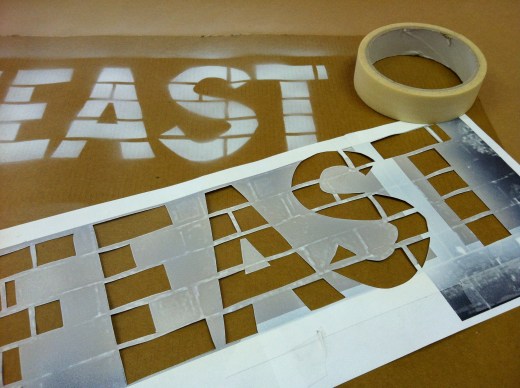
Sign painting past and present
Open your eyes, look up and discover ‘ghostsigns’, the fading remains of hand-painted advertising on walls.
Sam ‘ghostsigns’ Roberts leads tours of these faded signs in Stoke Newington in North East London, just down the road from the Type Tasting studio. For the London Design Festival this year he is leading a new walk through the streets of Southwark in South London hunting for the fading remains of painted signs from years gone by. The tour will reveal some of London’s most iconic signs, exploring the local, advertising and design history that they convey.
Bankside Ghostsigns Walk for the London Design Festival
If you prefer your sign painting fresh off the brush you can try your hand at painting letters in the iconic surrounds of Borough Market with sign legend Mike Meyer “paint, brushes, lettering and laughs guaranteed”. To tie in with this there is a double-bill screening of the Sign Painters movie and 21st Century Victorian, a short film about UK signwriter and fairground artist Joby Carter who says that as a fairground signwriter he considers himself to be a showman. Find out more.
Sign painting weekender with Mike Meyer
The Type Tasting studio turned into a creative wonderland of ink and hand painted letters this weekend. To coincide with the London screenings of Sign Painters Mike Meyer, one of the film’s stars, came to town to deliver an intensive two-day sign painting workshop which was organised by Sam from Better Letters. Mike teamed up with the Brilliant Sign Co. and under their expert guidance we filled the Type Tasting studio with inky lettering.
Painting Signs with Mike Meyer & The Brilliant Sign Co
“If you have the ‘FIRE IN THE BELLY’ and really have a passion for lettering… this is a workshop for you!” Mike Meyer, Sign Painter
Signage from Dalston to Devon
Different letters found in Dalston assembled to make the phrase 'Club Labrynth'
Above is Club Labrynth by Sam Roberts from Ghostsigns who came along to Sunday’s Dalston Type Safari. He explains that “For me, Club Labrynth is the earliest memory I have of Dalston as a destination. Back in the mid-1990s it was the weekly hardcore/jungle night at the legendary Four Aces nightclub… The provocation of memory was an unexpected aspect of the Type Safari, and there were other long-term Hackney residents on the walk sharing their own recollections.”
Sign painter workshop
To coincide with the London screenings of the Sign Painters movie, Mike Meyer, one of the film’s stars, is coming to town to deliver an intensive two-day sign painting workshop.
The workshop will be hosted in the Type Tasting studio and is brought to you by Ghostsigns.
‘Beanfeast’ by Sam Roberts
‘Beanfeast’ by Sam Roberts
Roberts’ work photographing and researching the fading remains of advertising painted on walls (a.k.a. ghostsigns) often leads to interesting questions, such as ‘what is a beanfeast?’. The full text of this Highgate sign is ‘Catering for beanfeasts, parties & clubs’. Roberts goes on to explain that “However, beans in this case aren’t the baked variety, but the accounting type. A beanfeast is a party thrown by an employer if the end-of-year ‘bean counting’ has revealed a positive set of accounts. The modern equivalent would be the Christmas party and the deployment of ‘beans’ to pay for it.”